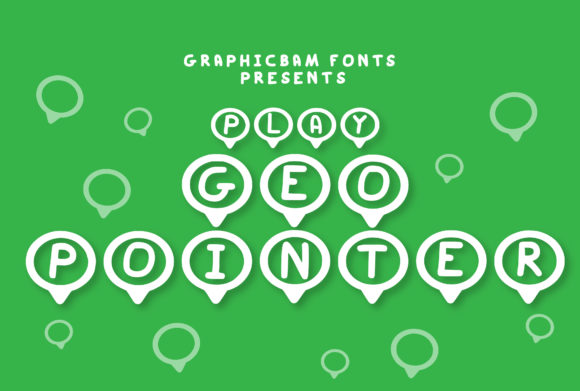
Indulge in the captivating allure of Play Geo Pointer, a decorative font that will ignite your creative spirit. Immerse yourself in a world of limitless possibilities, where your designs take center stage and captivate every gaze.
Crafted with meticulous precision, Play Geo Pointer empowers you to express your individuality with flair and panache. Each stroke, each curve, each angle is a testament to the artistry that lies within. Unleash your imagination and let the font's playful nature guide your creations to new heights of creativity.
Picture this: an invitation adorned with the elegant dance of Play Geo Pointer, hinting at the grandeur of the event to come. Or a website that exudes sophistication, its headlines adorned with the font's graceful curves, beckoning visitors to explore further.
With Play Geo Pointer, the mundane becomes extraordinary, the ordinary transforms into the sublime. Embrace the font's versatility and let it breathe life into your digital designs, presentations, and even those heartfelt greeting cards that carry your love and affection.
Whether you're a seasoned designer or just starting your creative journey, Play Geo Pointer is the font that will spark your inspiration and elevate your creations to new levels of brilliance. Its charm is undeniable, its allure irresistible.
Don't settle for ordinary fonts. Embrace the magic of Play Geo Pointer and let your imagination soar. Discover the limitless possibilities that await you, where creativity knows no bounds.